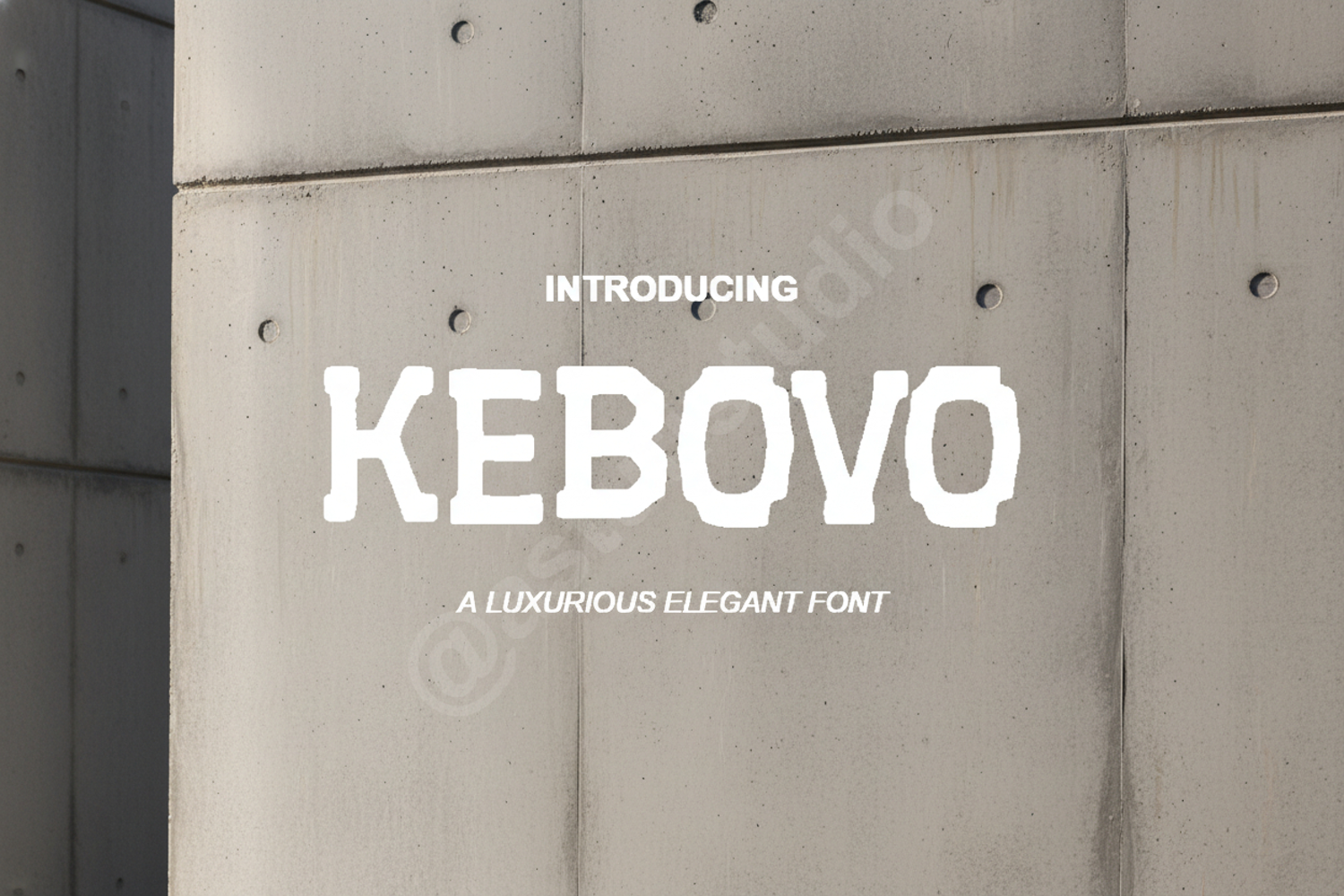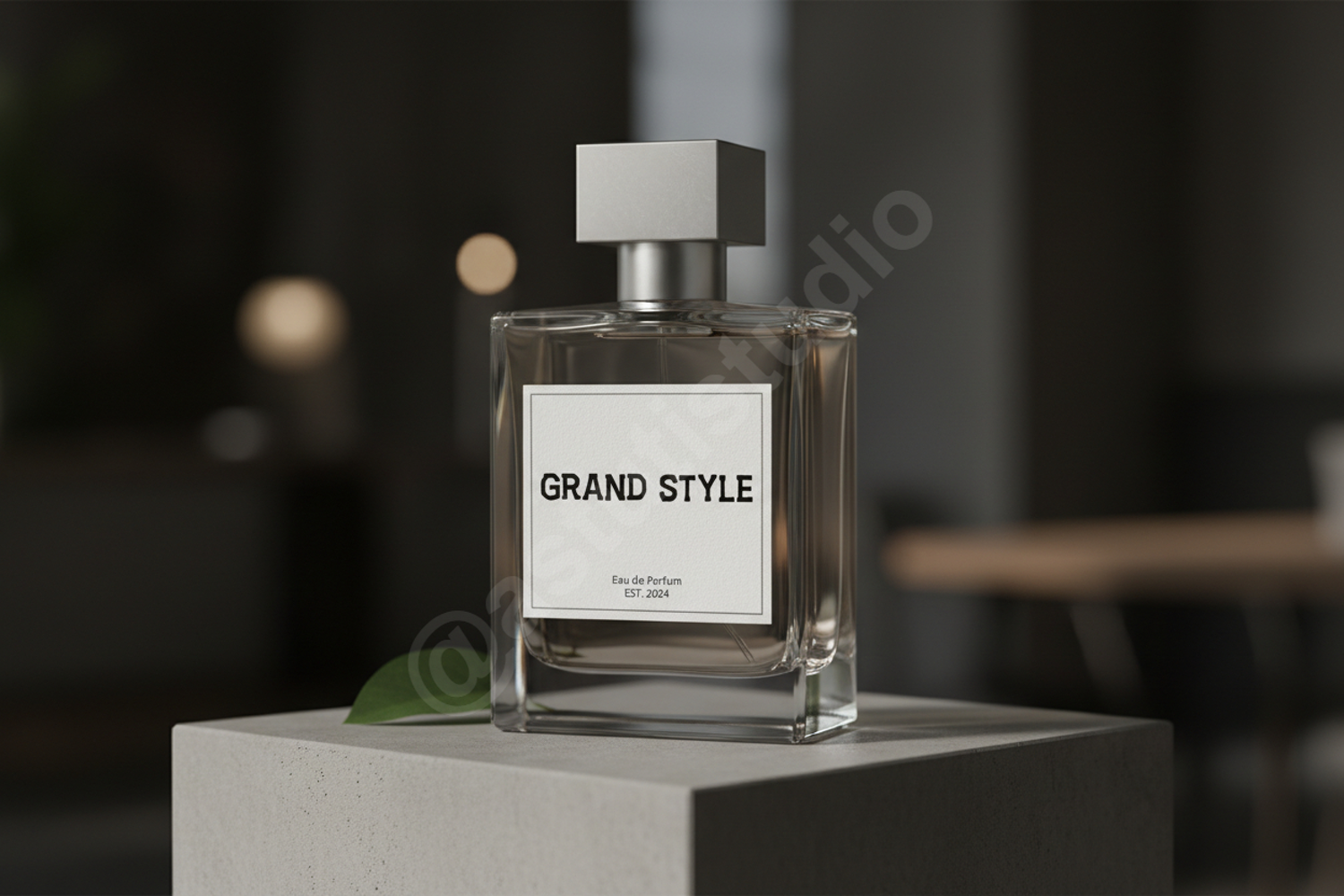
Kebovo - Modern Geometric Sans Serif Typeface
Kebovo
Kebovo is a premium modern geometric sans serif typeface designed for clarity, balance, and high-end impact. This font features clean lines and a sophisticated structure that adapts seamlessly to a wide variety of design projects. Whether you are building a contemporary brand identity or designing a sleek digital interface, Kebovo provides the versatility and professional edge required to make your work stand out.
- Full set of uppercase and lowercase letters
- Numbers, punctuation, and multilingual support